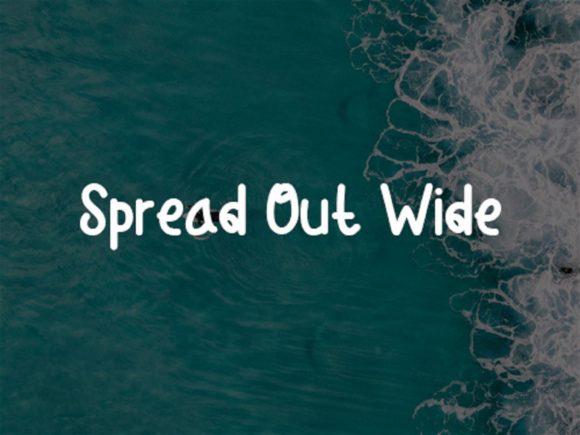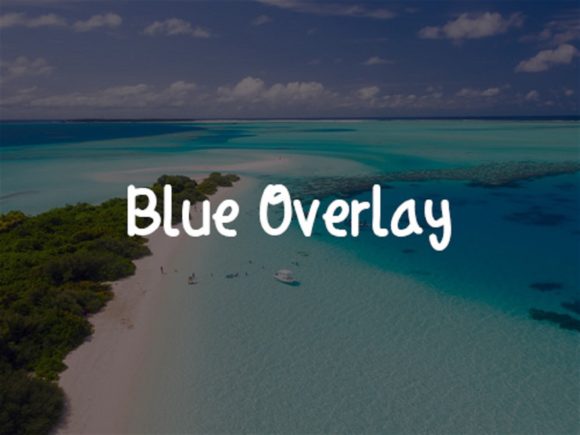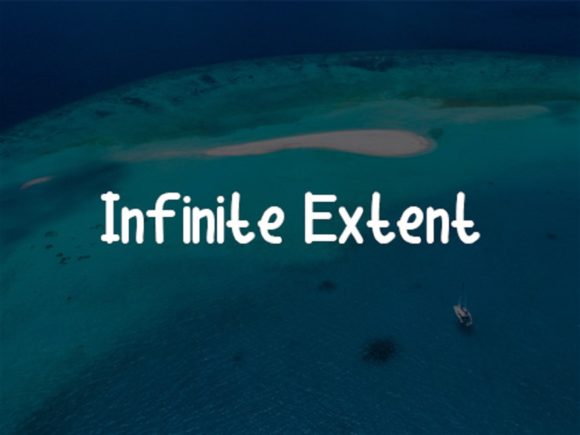
Introduction to Expanse of the Ocean Font
Expanse of the Ocean is a beautiful and neat handwritten font.
It looks beautiful on a variety of designs requiring a personalized style, such as wedding invitations, thank you cards, weddings, greeting cards, logos and so on .
Key Features of Expanse of the Ocean Font
Why Choose Expanse of the Ocean Font?